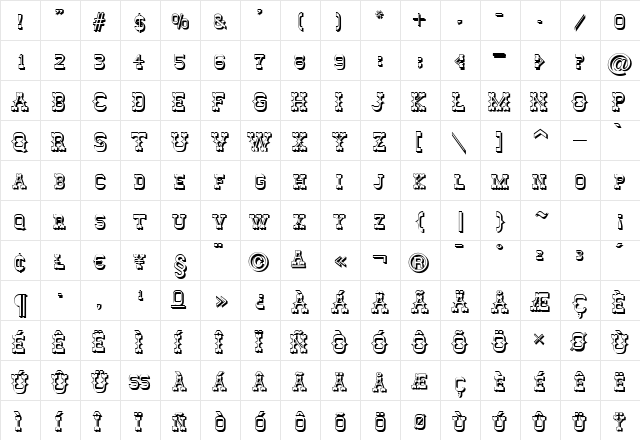
EmelyBeckerShadow Normal
Design Context for EmelyBeckerShadow Typeface
EmelyBeckerShadow is built around its visual character rather than neutral utility — its distinctive forms are designed to make an impression at display sizes.
Font Pairing: Pair with a clean neutral sans-serif for body copy to let EmelyBeckerShadow's character lead without overwhelming the composition.
Pro Tip: Use EmelyBeckerShadow exclusively at display sizes — it was designed to be seen, not read at length. Let a neutral companion handle body copy.